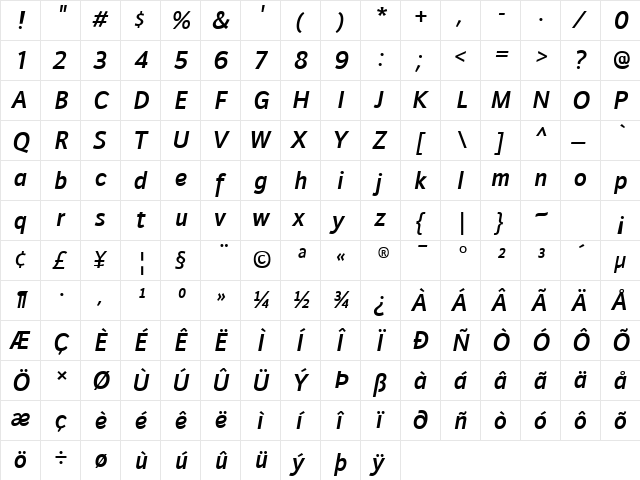
Doradani Semibold Italic
Design Context for Doradani Typeface
Doradani offers clean, dependable letterforms without strong stylistic allegiance, making it a practical choice for designers who need flexibility. Its italic angle brings a sense of urgency and motion to the letterforms. The heavy weight commands attention and anchors typographic hierarchies.
Pro Tip: Use Doradani for emphasis, pull quotes, and subheadings where its slanted energy can add rhythm to the layout.